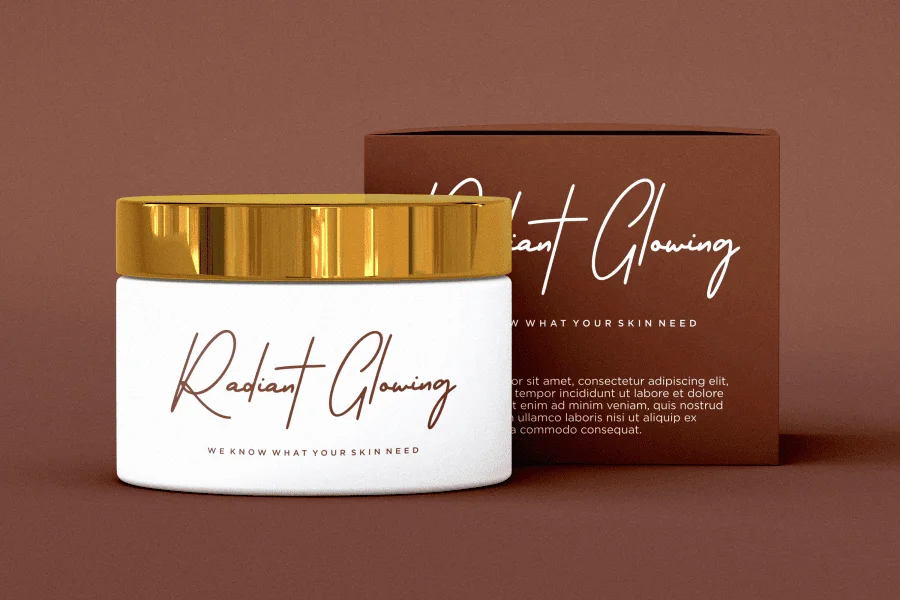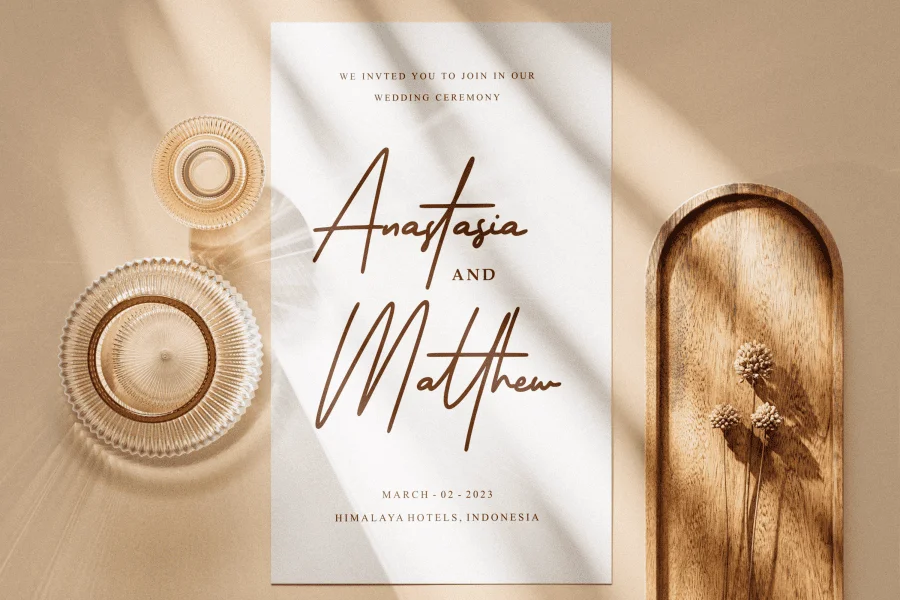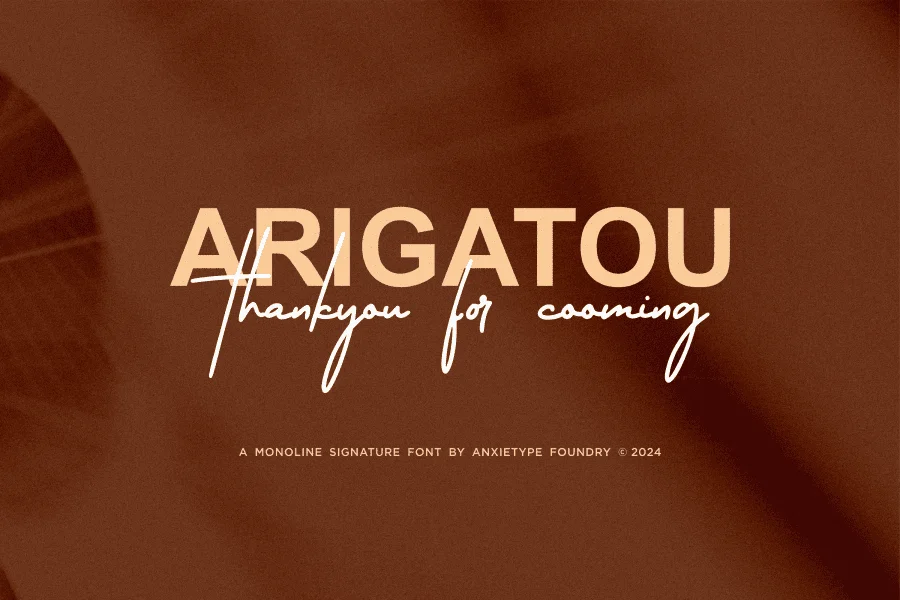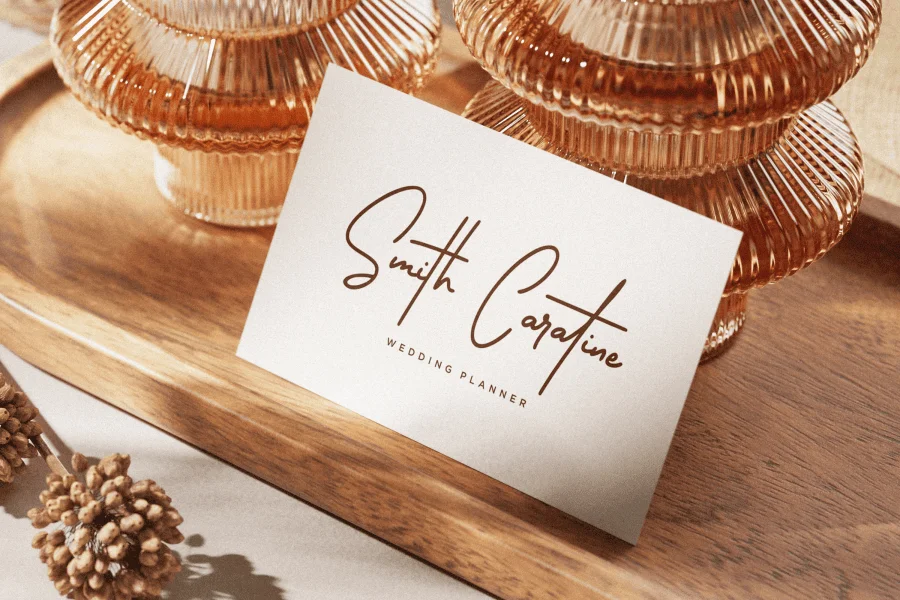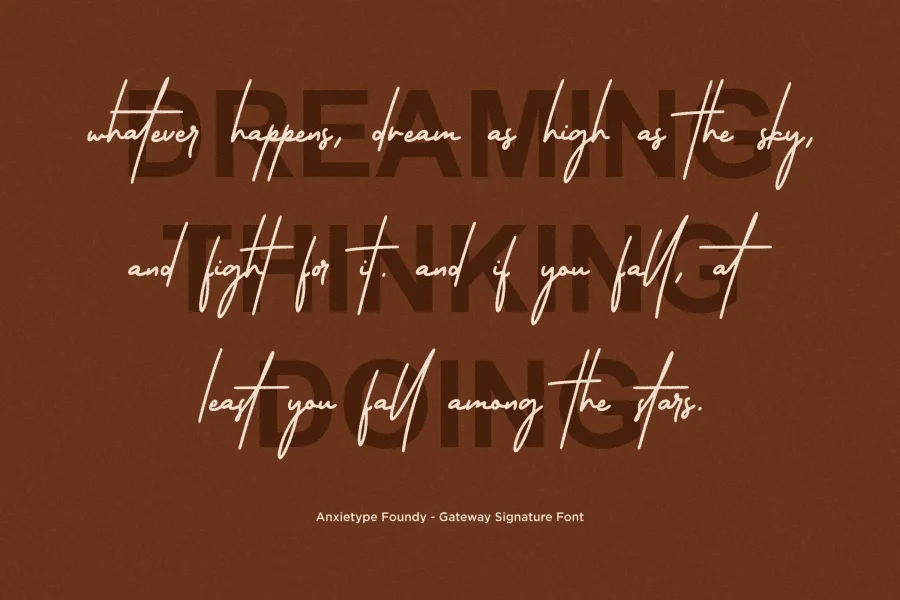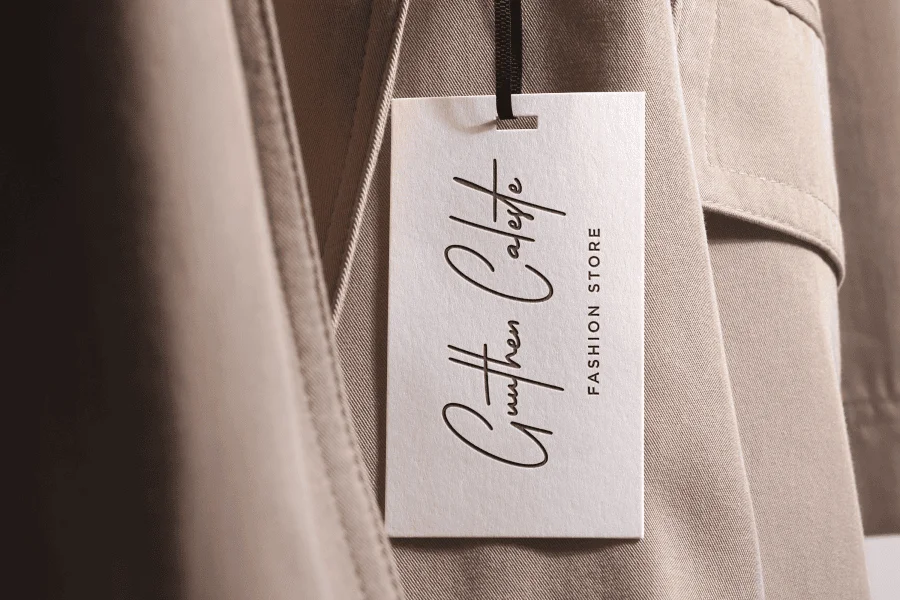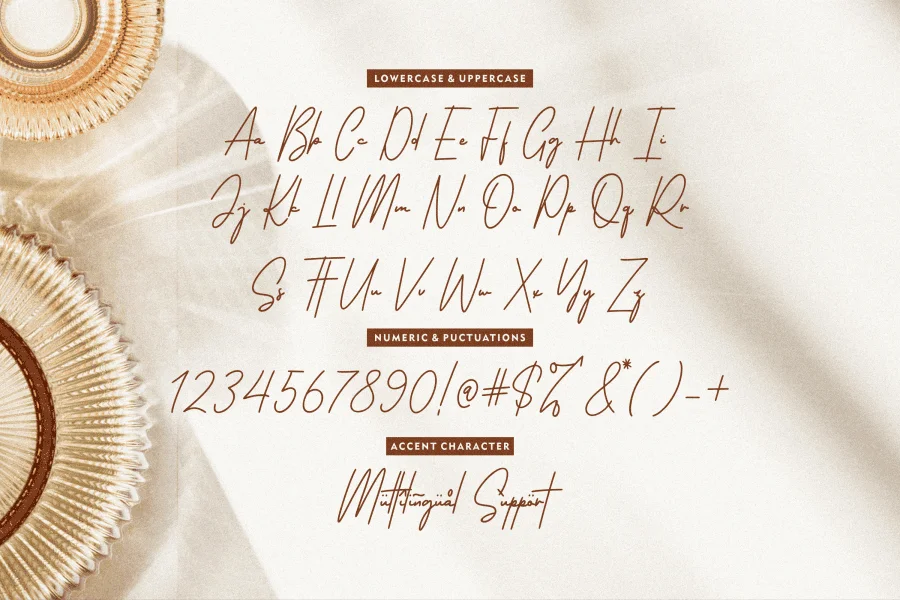
Gateway Signature is a monoline font created by the creative minds at Anxietype Foundry. easily bring unique charm to a variety of applications - from establishing a brand identity to creating stunning wedding invitations. Gateway Signature is also adept at enhancing the appeal of a beauty product, upping the glamor quotient of a fashion label, or making a brand logo design something fun. With this font, sophistication is easy, striking the perfect balance between artistic design and practical ease of use.